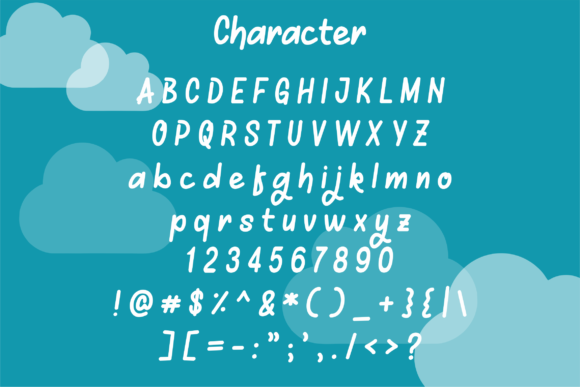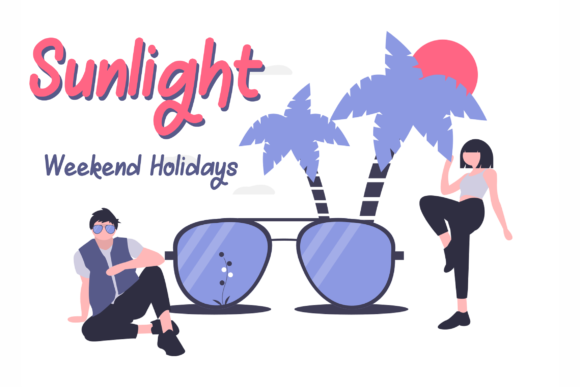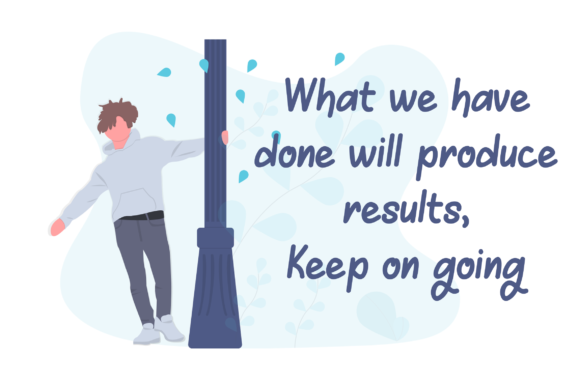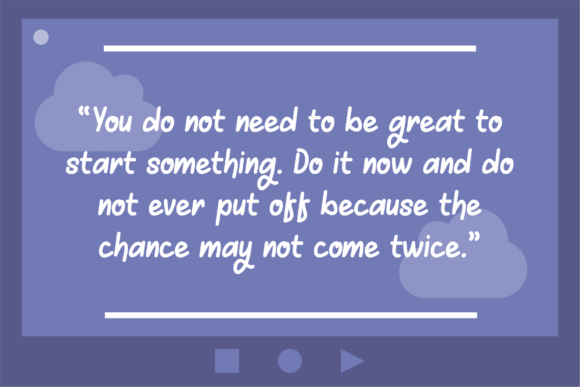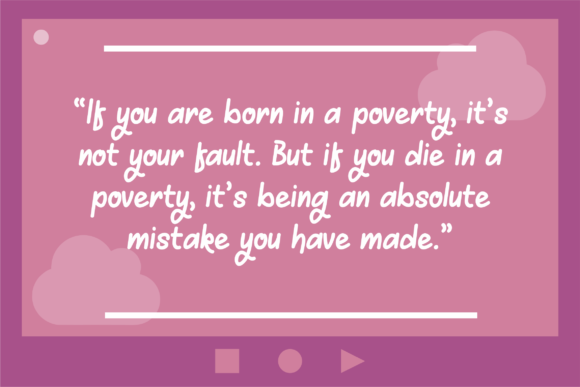
Introduction to Mellows Font
You know that moment when you’re staring at a blank canvas, and the only thing that sparks inspiration is the perfect font. For designers, finding that elusive combination of style and substance can make all the difference in turning a project from good to great. And that’s exactly where the Mellows Font comes in – a simple yet charming display font that’s sure to elevate any creative project.
Imagine a design resource that not only adds a touch of authenticity but also provides a high-quality, transparent background that lets your content shine. The Mellows Font is more than just a stylish addition – it’s a valuable tool that can take your designs to the next level. And the best part? It’s available for free download, making it a must-have for any serious designer looking to add some personality to their work.
Key Features of Mellows Font
- High-quality, free font design resource suitable for creative projects
- Transparent background, allowing for easy layering and composition in design
- Designed to be highly legible and visually appealing, with a clean and modern aesthetic
- Perfect for designers, artists, and creatives looking for a unique and high-quality font to elevate their work
Honest Review: Mellows Font
I recently had the chance to work with the Mellows Font, and I must say it’s been a great addition to my design resources. This free download has been a game-changer for my creative projects.
- ✨ Beautiful, elegant script that’s perfect for headings and titles.
- ✨ The font is highly legible, even at smaller font sizes.
- ✨ The transparent background option is a great feature, allowing me to customize the font to fit any design.
- ⚠️ The font doesn’t have a lot of variations, so it might not be suitable for projects that require a lot of font styles.
- ⚠️ The font is a bit too ornate for some designs, so use it sparingly to avoid overwhelming the composition.
Overall, I’m really impressed with the Mellows Font. It’s a high-quality design resource that’s perfect for creative projects. The free download is a great bonus, making it accessible to designers of all levels. I’d definitely recommend giving it a try.
Tips for Getting the Most Out of Mellows Font
Use Mellows Font in conjunction with a high-quality image for a visually appealing design. Experiment with different font sizes and styles to achieve the desired effect. You can also use Mellows Font in a creative project, such as a logo design or a brochure, for a professional look.
Mellows Font is ideal for use in branding, marketing materials, and creative projects that require a unique and eye-catching font. It is also suitable for use in presentations, documents, and web designs that require a high-quality font with a transparent background.